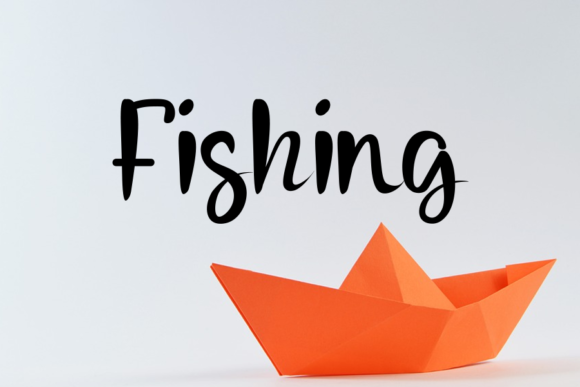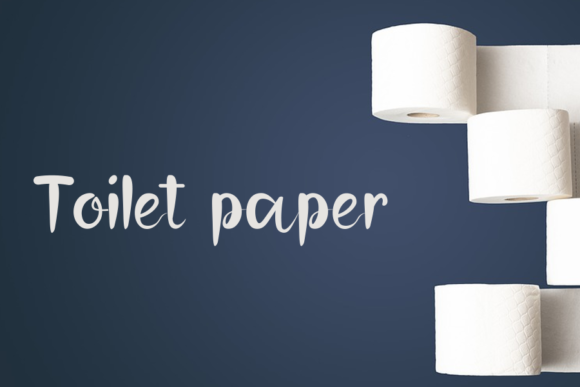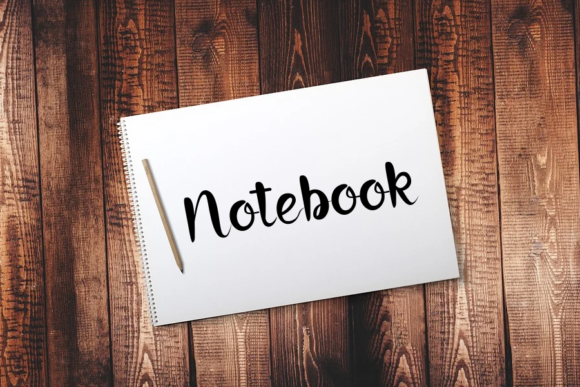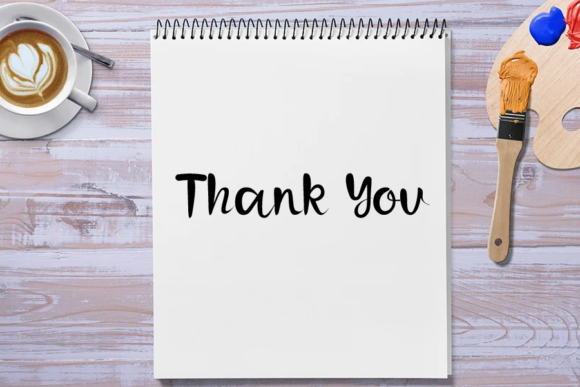
Lovingly Font
About Lovingly Font
Lovingly is an flowing handwritten font. This versatile script font has a wide spectrum of applications ranging from greeting cards to headlines and is guaranteed to add a romantic feel to your next project.